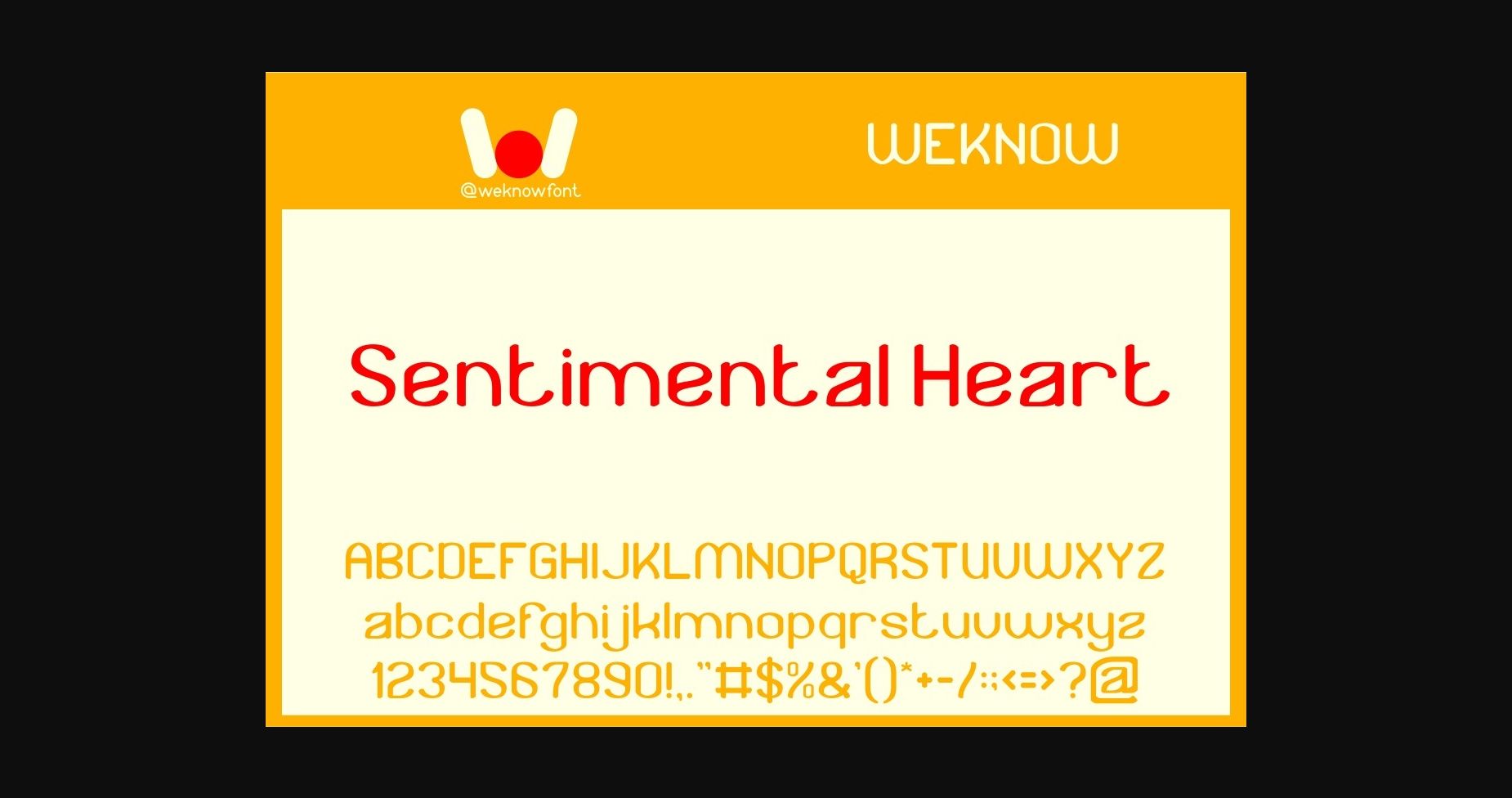
About Sentimental Heart Font
Sentimental Heart is a cool and unique sans-serif font, suitable for a logo, logotype, headline, corporate identity, brand identity, apparel industry, poster, music, movie, game, magazine, book, comic, cartoon, YouTube, Instagram, website, or any of your creative design projects.